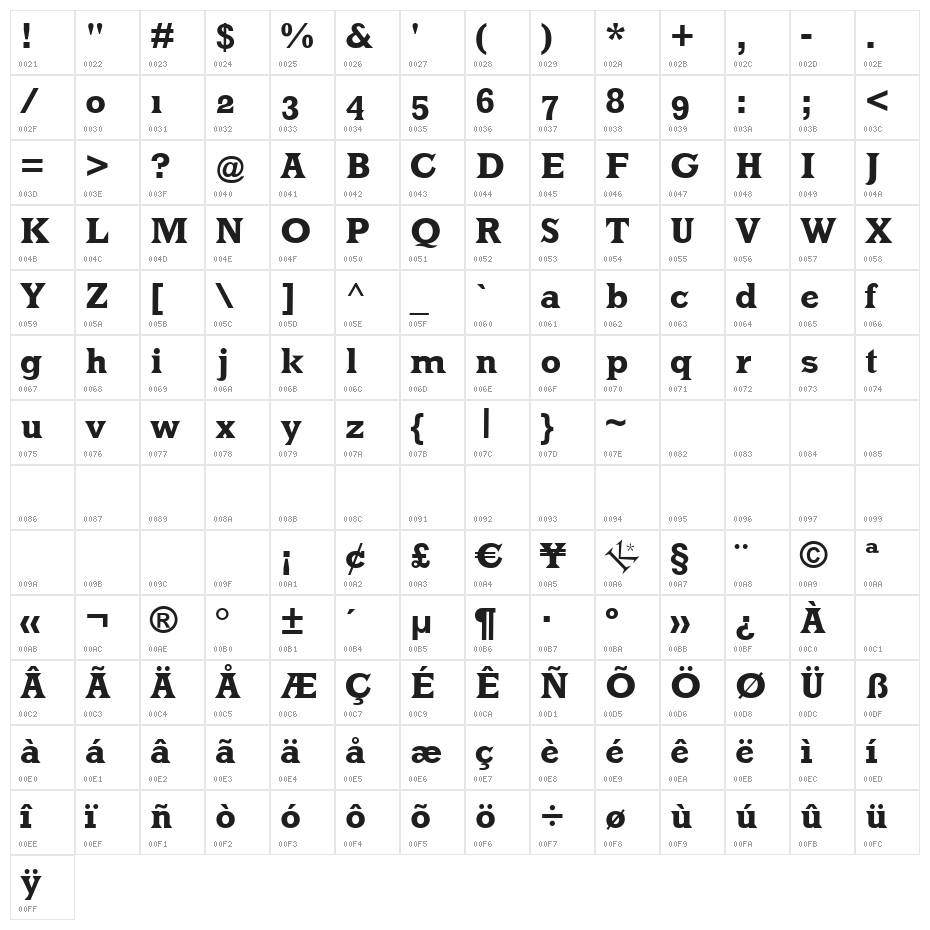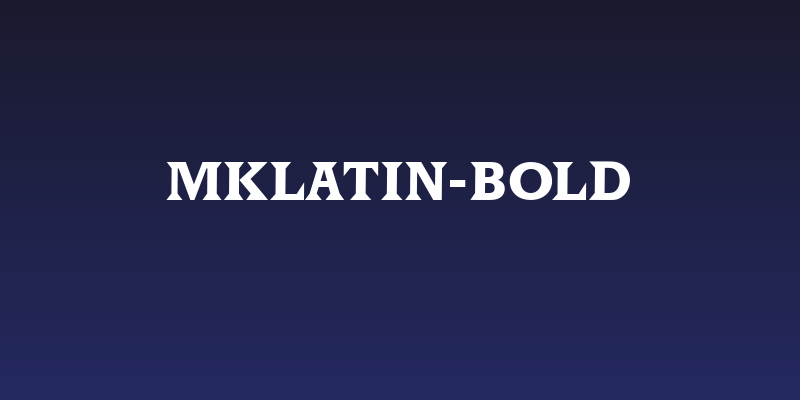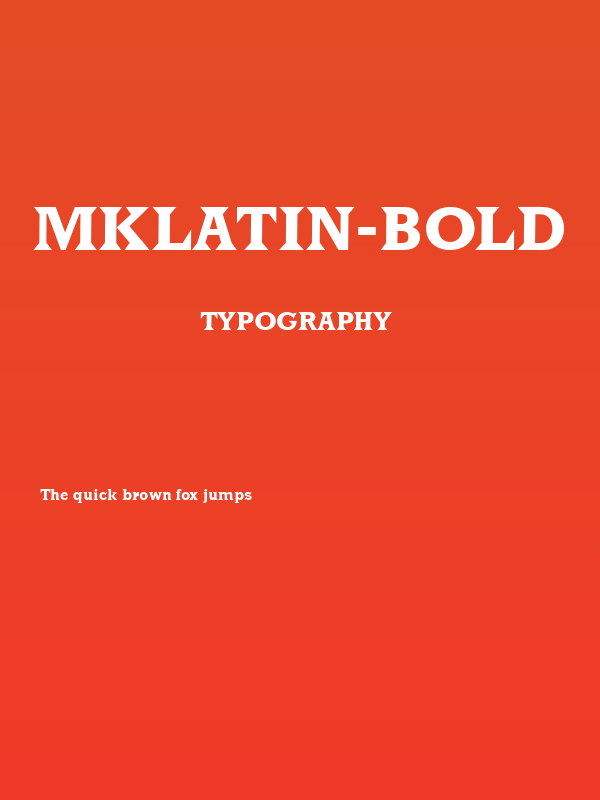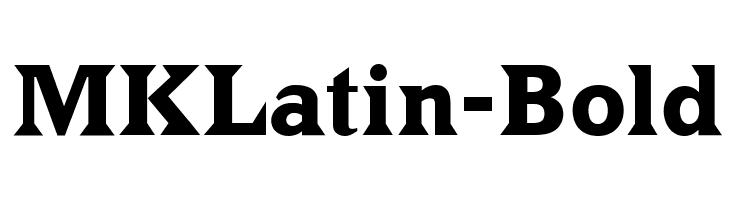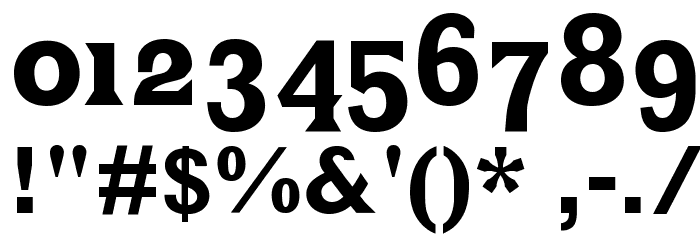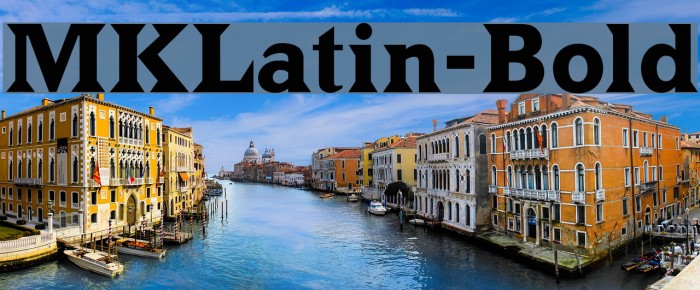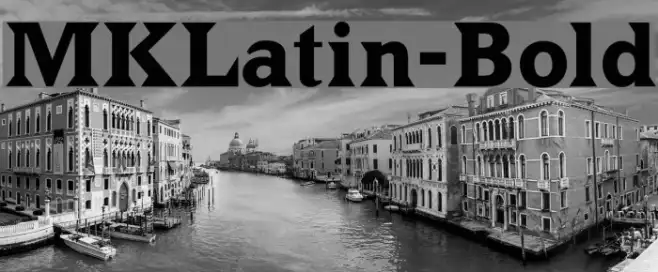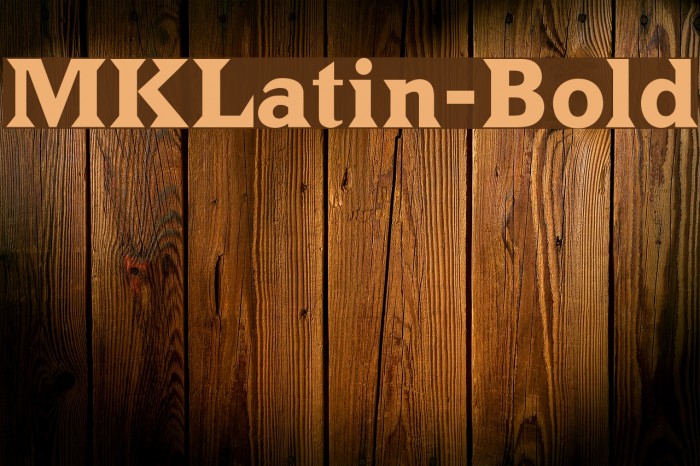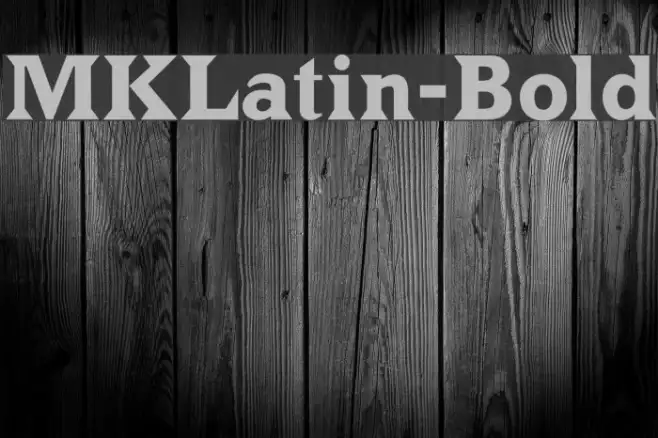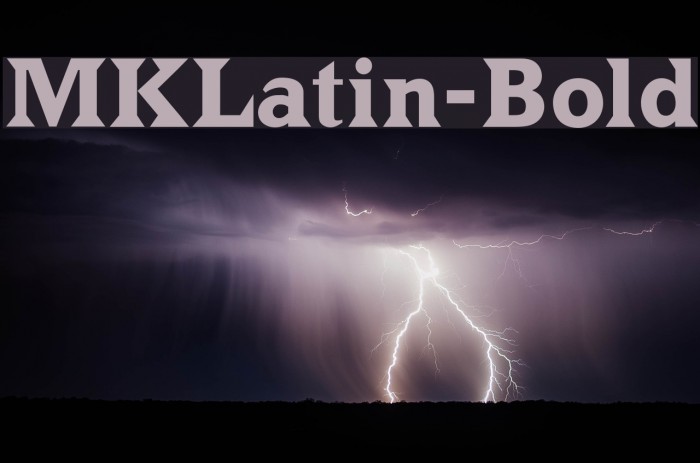
MKLatin-Bold Font
MKLatin-Bold Description
This font features bold, strong serifs with a classic and authoritative appearance. The uppercase letters are robust and commanding, while the lowercase letters maintain a consistent weight, providing a sense of balance and readability. The numerals are clear and distinct, making them suitable for a variety of uses. Special characters are well-defined, adding versatility to the font. The overall design is reminiscent of traditional serif fonts, yet it carries a modern touch with its boldness and clarity.
| Use Case | Headlines, Logos, Editorial design |
| Proposed Projects | Ideal for headlines, book covers, branding, and editorial design where a strong, authoritative presence is desired. |